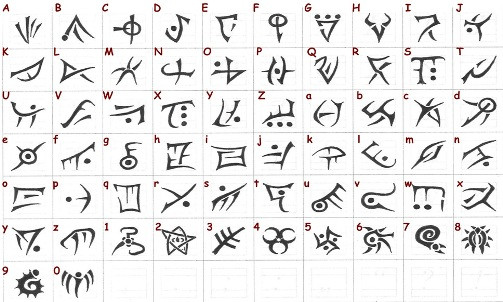
Just to clarify, i noticed that some of the glyphs were similar to someone elses work, so i redesigned them and created a new improved font, which you can see here....
I made up most of them, and a few are from the Cthulhu Mythos
Some of the markings looks similar to some ' legacy of Kain soul reaver ' series.
I've never played it, but i looked it up online and yeah your right, some are.
1 -5 are various Mythos related symbols, the rest are made up.
No offence but the number 4 is a Biohazard sign. If you really wanna original and dont wanna stick to similar things I recommend to change it slightly. But for the other sign I must say I'm pretty amazed great work.
Yeah i totally agree. Check out the improved version 2. No Biohazard sign